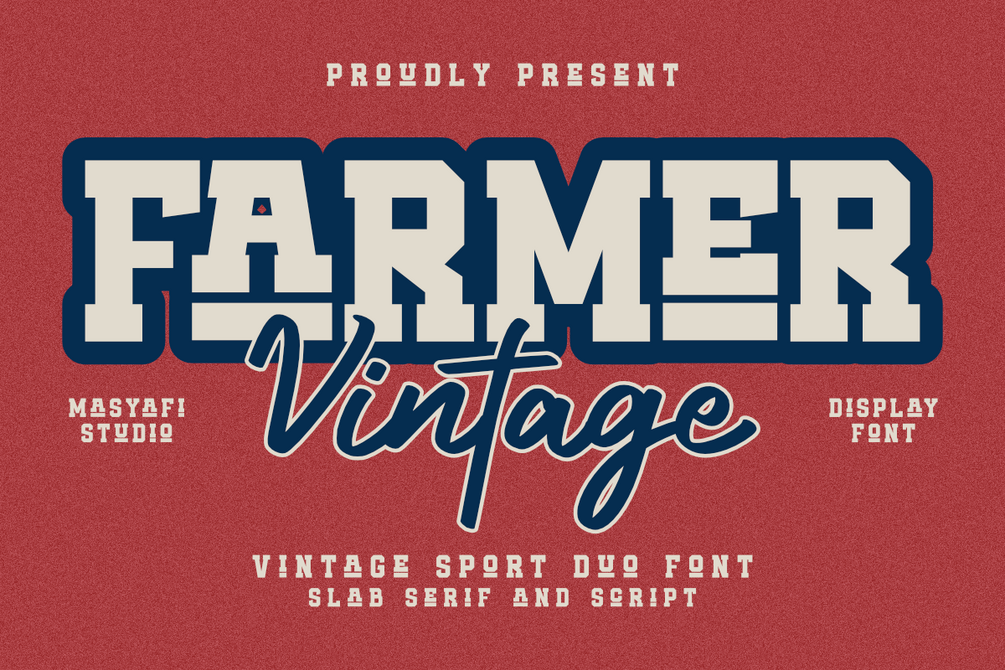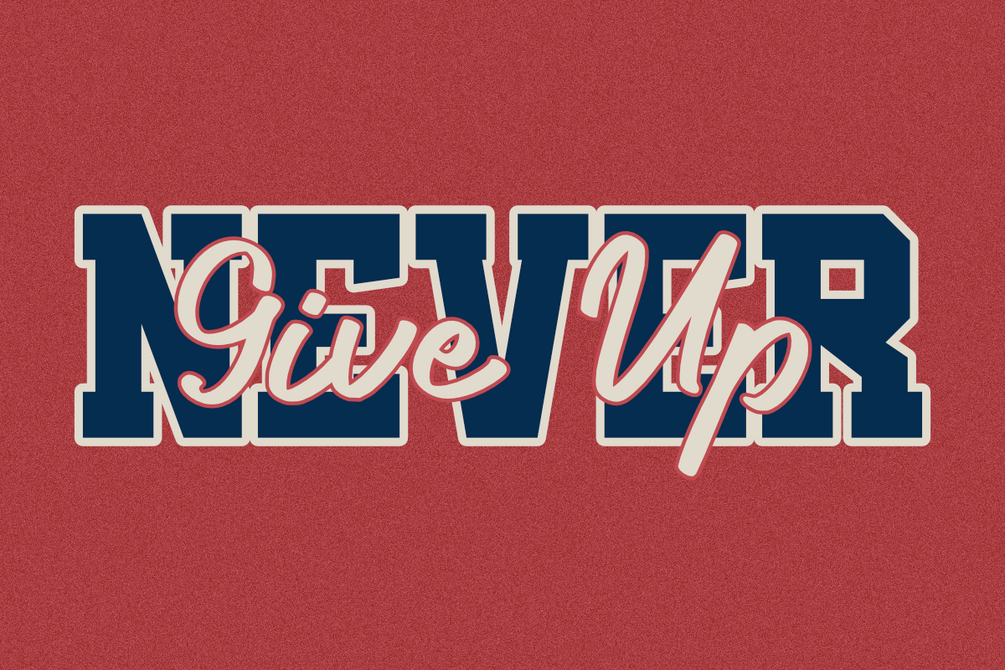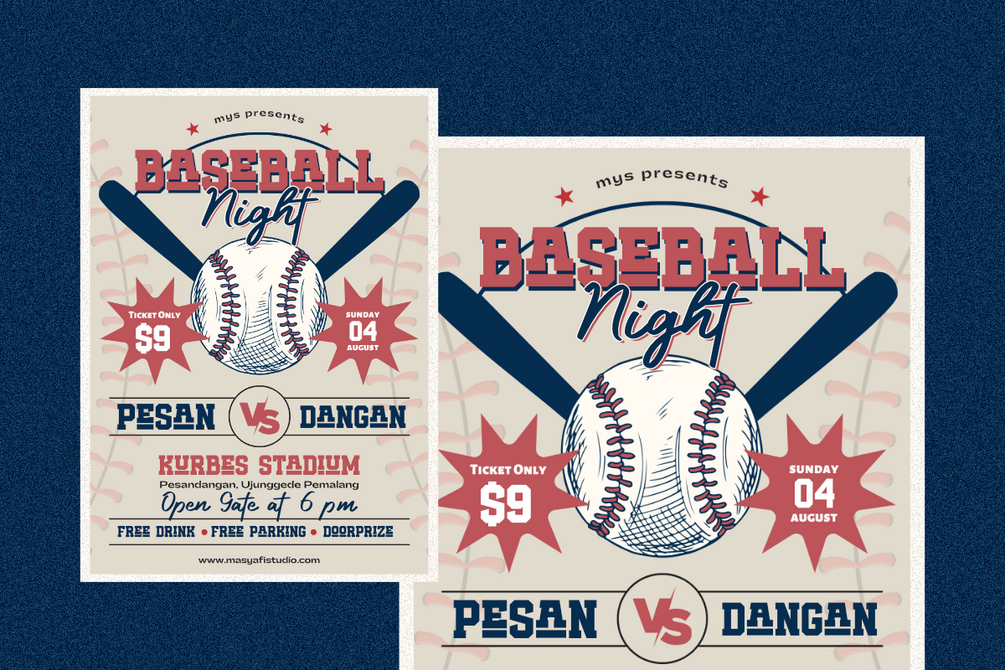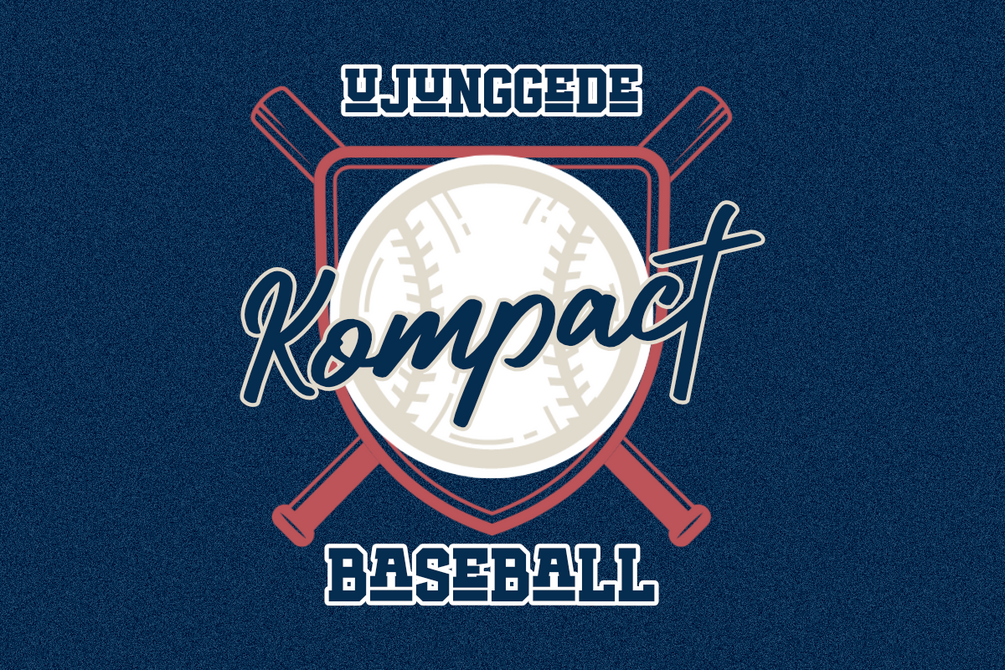
Farmer Vintage - Vintage Sport Duo Font
Farmer Vintage is a cool slab serif and script duo display font. This font is inspired by the typography of baseball and basketball sports designs. This font is perfect for a design that requires a sport and vintage accent. Farmer Vintage is suitable for book covers, posters, packaging, merchandise, logotype, and much more.